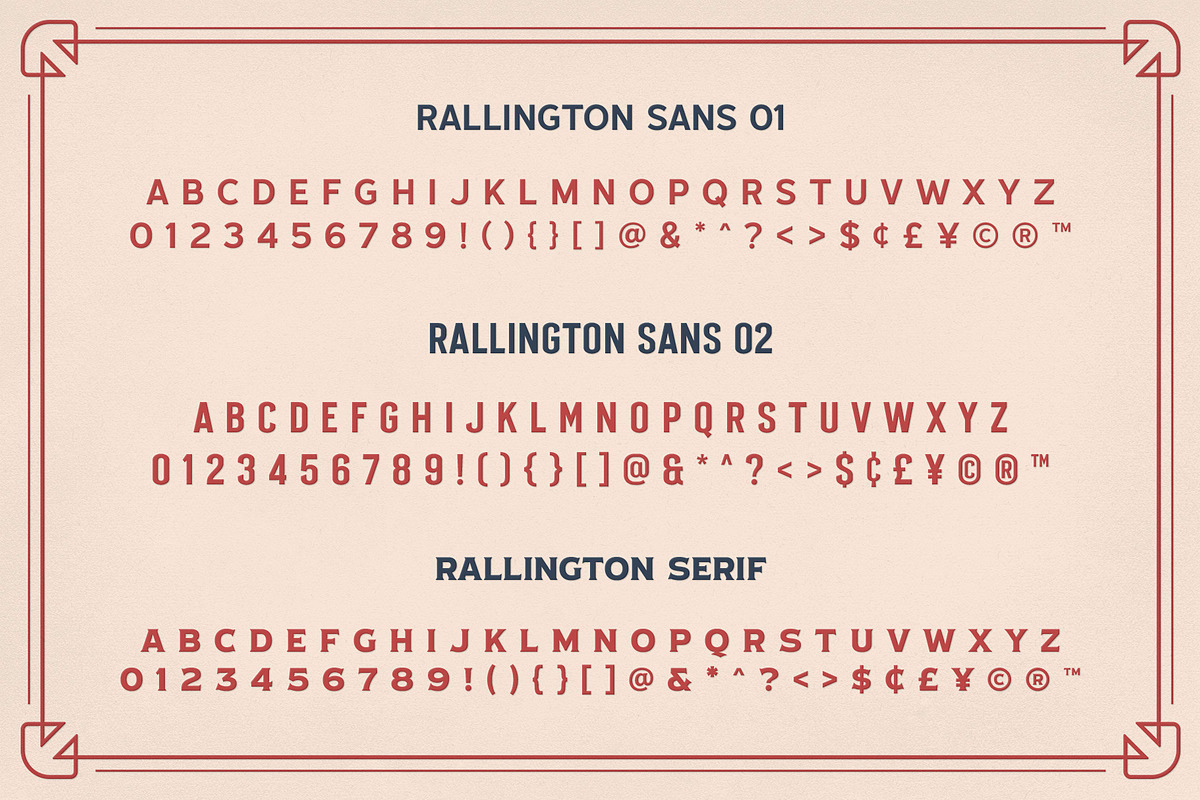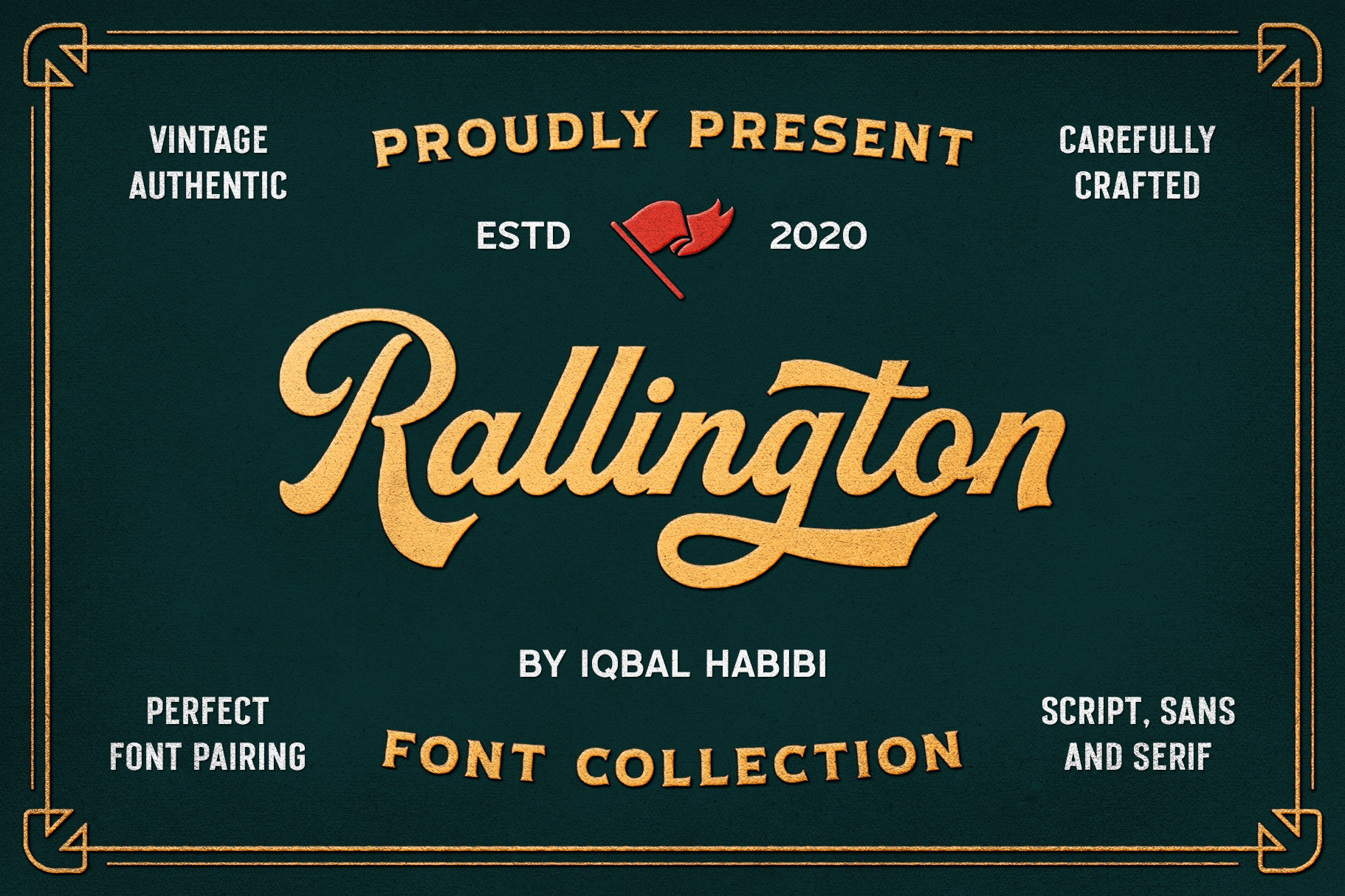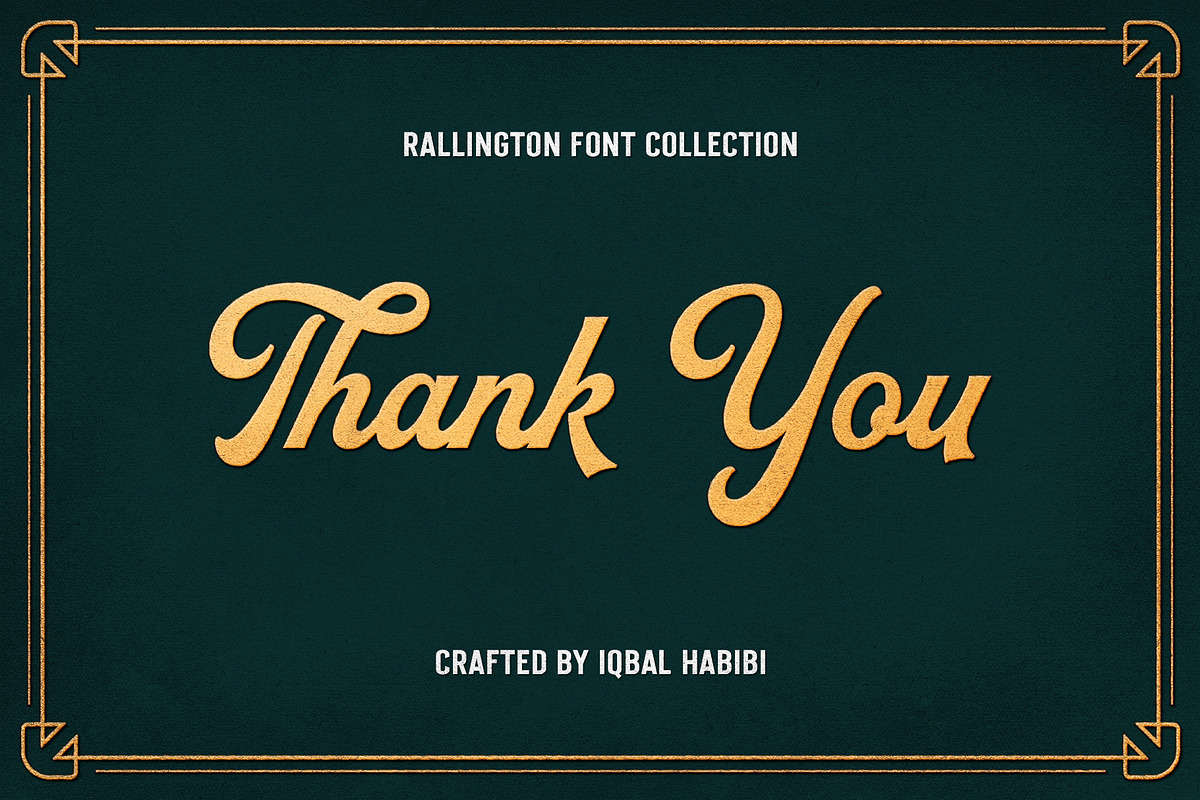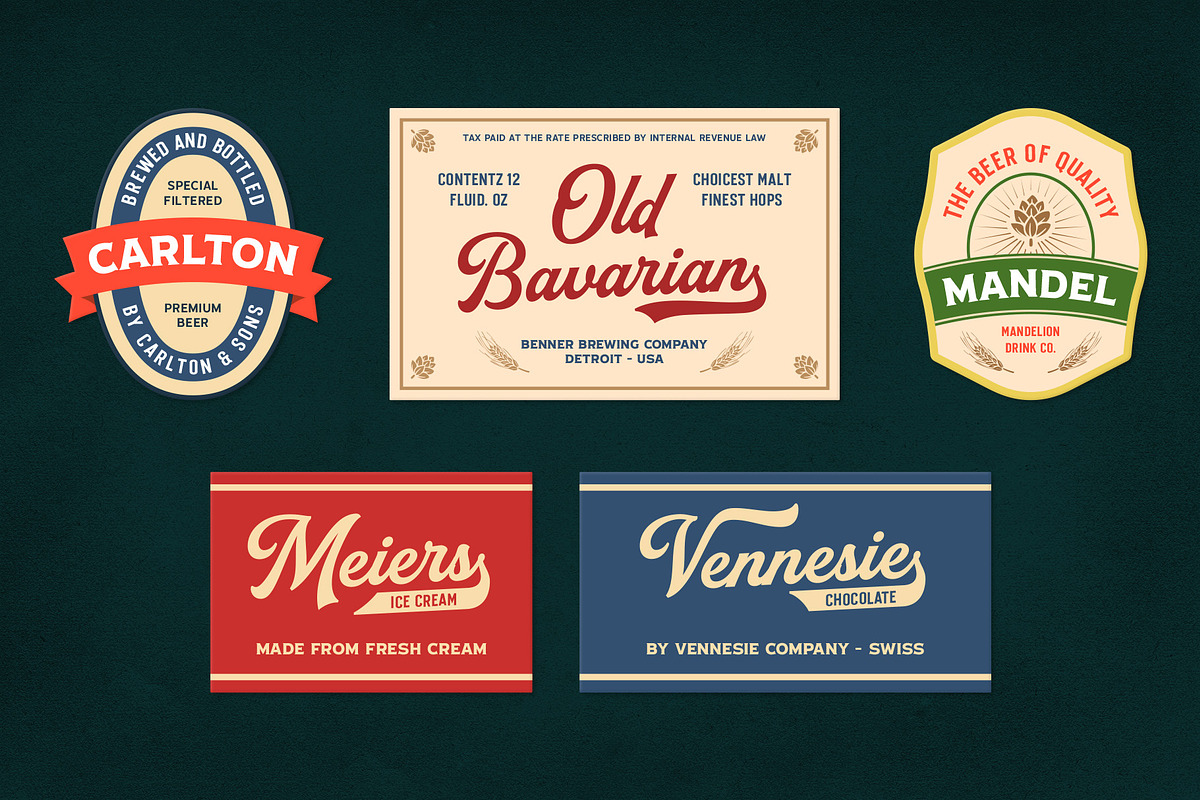
Rallington - Font Collection
Rallington Font Collection is inspired by vintage lettering works, such as beer label design, vintage print advertisement, matchbox design, etc. This font comes with 4 Fonts. You can create a great combination with these fonts, like to create label design, signage, logotype, t-shirt and many more.
Rallington Font Collection features :
-Alternates and Ligatures
-Number, Punctuation, and Symbols
-Language Support (ÁÂÄÀÅÃÆÇÐÉÊËÈÍÎÏÌÑÓÔÖÒØÕŒÚÛÜÙẀŴẄẂÝŶŸỲŹŻŽáâäàåãæçđéêëèíîïìñóôöòøõœúûüùẃŵẅẁýŷÿỳźżž)
I needed a vintage, "baseball" sort of typeface for a client's logo. I tried a number of contenders, but ended up using Rallington. It has great overall style, but it also is more legible and adaptable than others I tried. Stylish glyphs made it easy to customize the look. I've since used Rallington for other types of projects, and these same qualities make it a very useful addition to my toolbox.